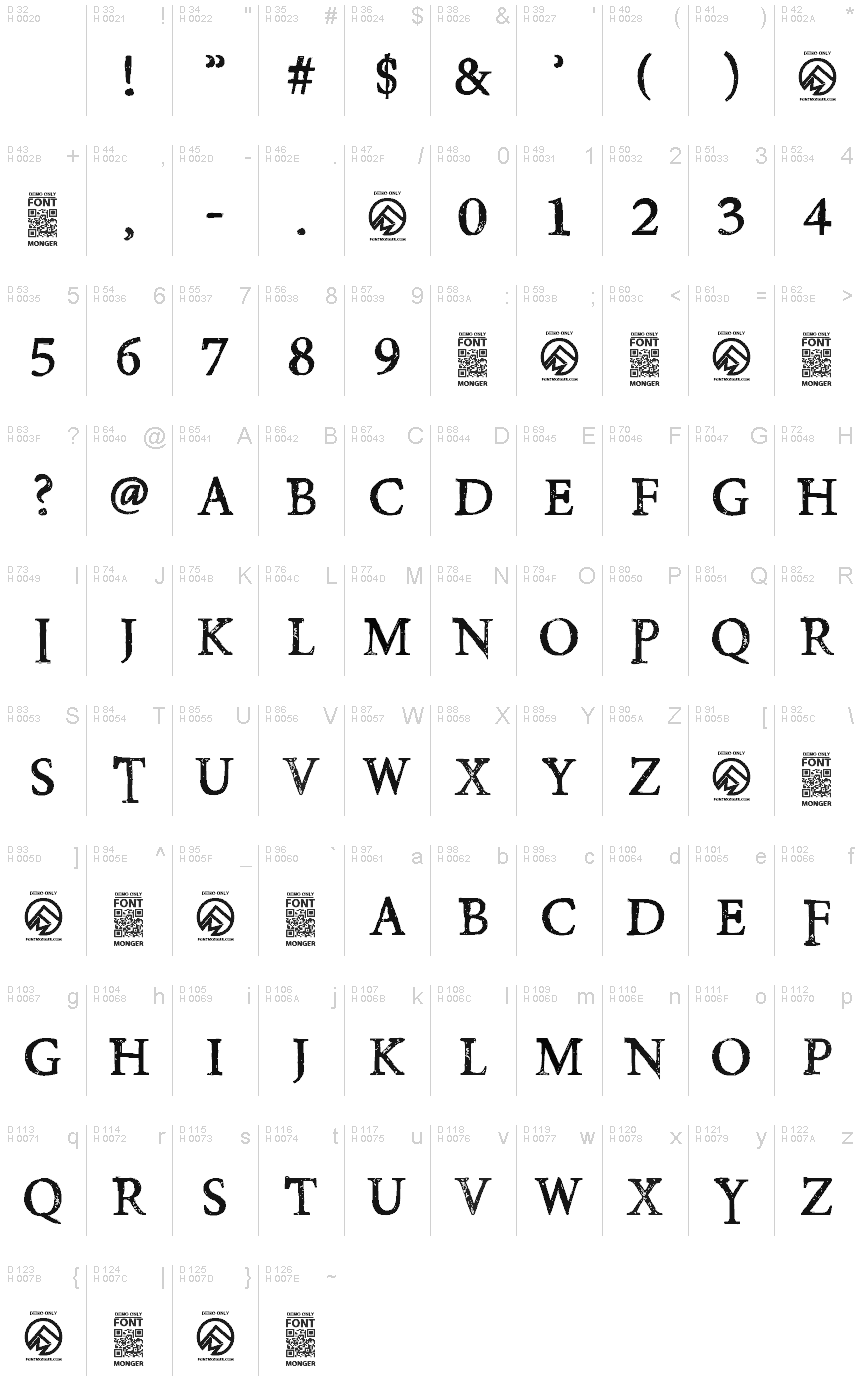
"Poison Hope" is a striking display font that exudes a haunting, eroded aesthetic. Designed by Chris Vile, this font's rugged lines and weathered textures evoke a sense of decay and desolation, making it a captivating choice for projects demanding a dark, edgy ambiance.
Its distressed appearance lends an intriguing visual interest, perfectly suited for horror-themed designs, gritty urban branding, or post-apocalyptic narratives.
The font's unique character and versatility make it a compelling addition to any designer's toolkit, allowing them to create impactful typographic compositions that command attention and convey a powerful, unsettling mood.
Poison Hope Regular is a font by Font Monger, designed by Chris Vile in 2015.